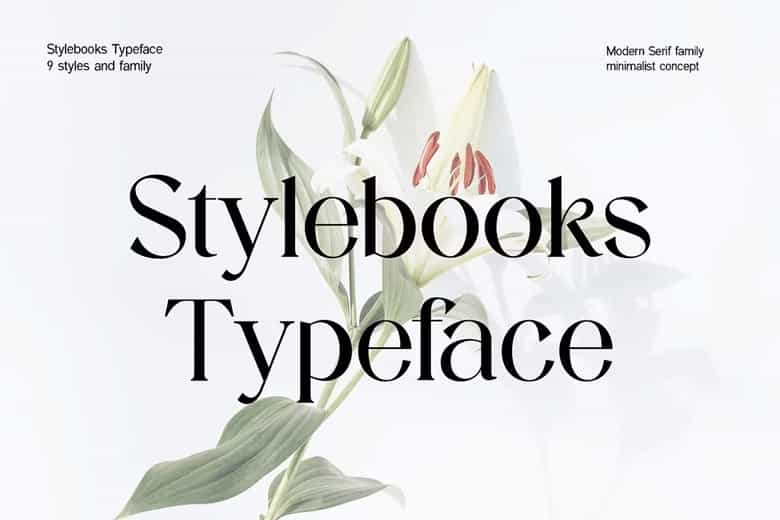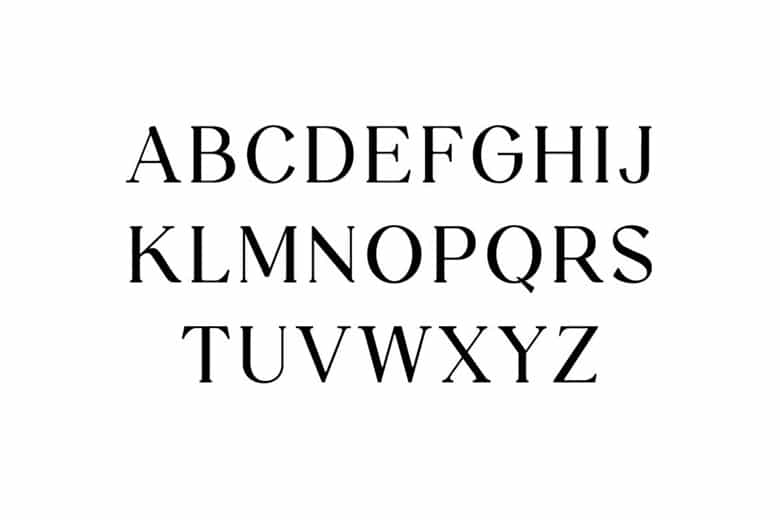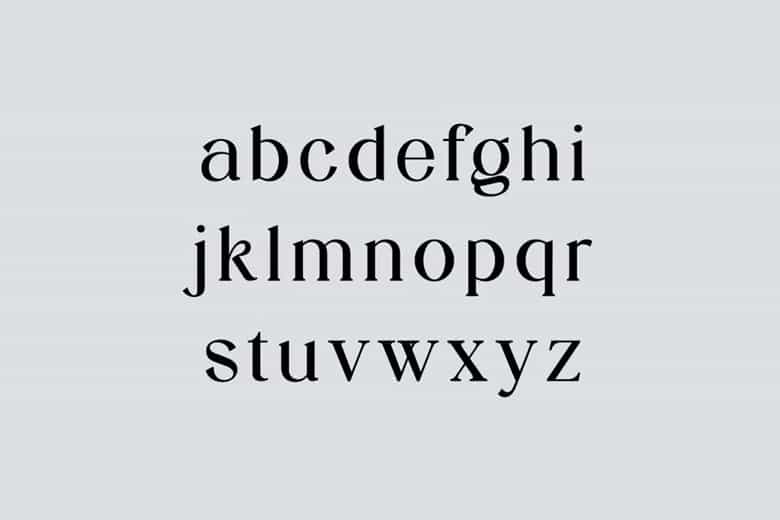
Stylebooks Typeface is an elegant serif font family. This font is perfect for any project including logo, wedding, typography quotes, magazine or book covers, website headers, branding and many others. Similarly, fashion branding or editorial design has both the qualities of men and women.